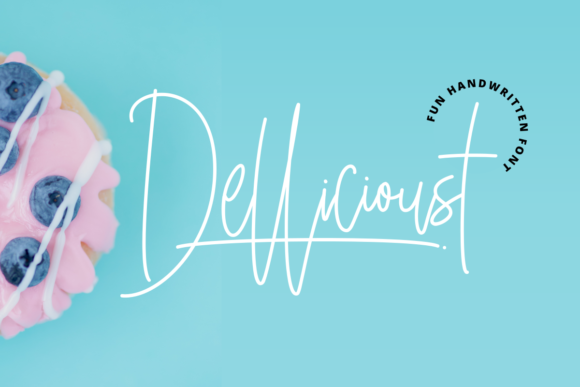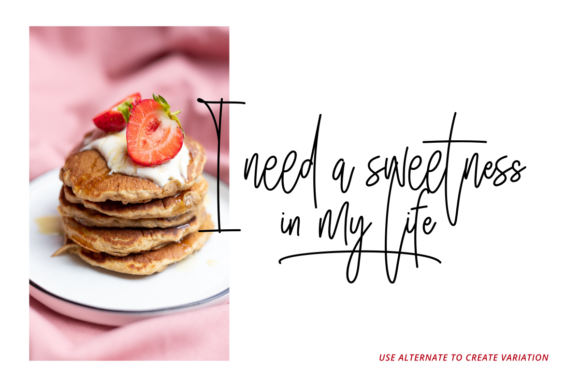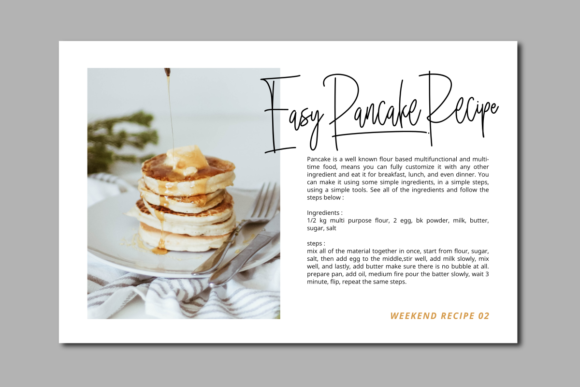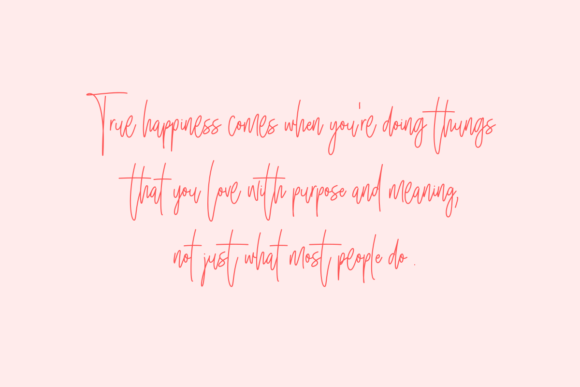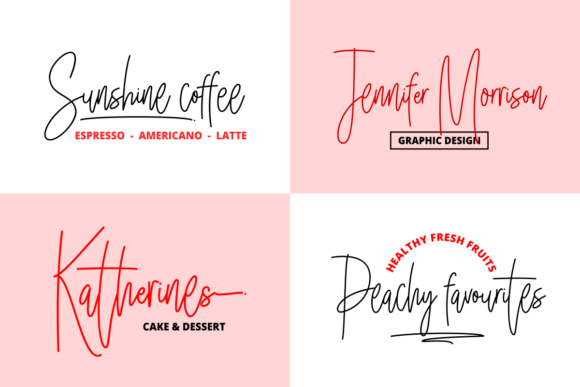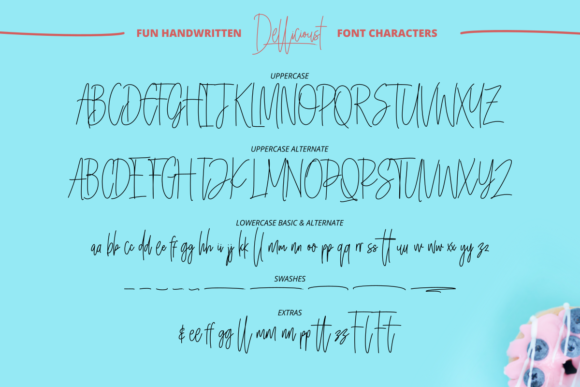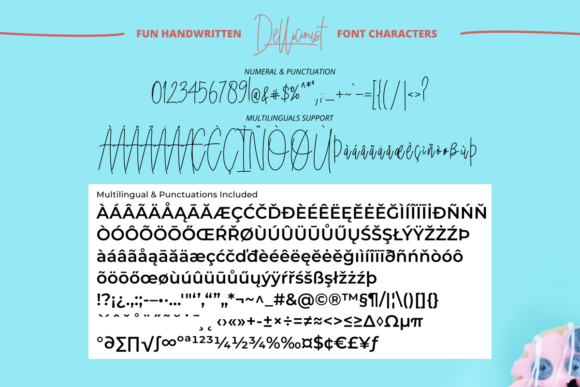
When Words Come Alive
Have you ever stared at a blank page, trying to conjure up the perfect phrase to capture the essence of your design? The words swirl around in your head, but nothing seems quite right. Then, like a breath of fresh air, inspiration strikes, and you know exactly what you need – a font that truly brings your message to life.
Meet the Dellicioust Font, a charming script font that’s perfect for adding a touch of whimsy and personality to your designs. With its playful characters and elegant flair, this font is sure to elevate your typography game. As a designer, you’ll appreciate the PUA encoding that makes it easy to access all of the glyphs and swashes, giving you the freedom to create unique and eye-catching designs.
Dellicioust Font Key Features
- Character Set: This font features a comprehensive character set, including Latin, Cyrillic, and Greek alphabets, as well as various punctuation marks and symbols.
- Font Size and Resolution: Dellicioust Font is designed to be highly scalable, with a recommended font size range of 10-24 points. It can be used at resolutions up to 1200 DPI (dots per inch) for high-quality printing.
- Unique Characteristics: The Dellicioust Font boasts a distinctive, hand-drawn feel with subtle texture and imperfections, giving it a warm and inviting appearance.
- Language Support: This font supports over 200 languages, making it an ideal choice for multilingual publications and websites.
- Font Weight and Style: Dellicioust Font comes in three weights: Light, Regular, and Bold, allowing users to choose the perfect style to suit their design needs.
Dellicioust Font Review
At first glance, Dellicioust Font seems like a promising addition to any designer’s toolkit. The font’s playful, cursive style ✨ is sure to catch the eye and add a touch of whimsy to any project. I particularly appreciate the font’s versatility, as it can be used for a wide range of applications, from invitations to social media graphics.
One of the standout features of Dellicioust Font is its ability to be easily customized ✨. The font comes with a range of weights and styles, making it simple to create a cohesive look and feel. Additionally, the font’s smooth, flowing lines ✨ make it perfect for creating a sense of movement and energy.
However, there are a few limitations to consider ⚠️. One of the main issues is the font’s readability at smaller font sizes. In some cases, the letterforms can become distorted or difficult to decipher, which may impact the overall effectiveness of the design.
Another potential issue is the font’s lack of support for certain languages ⚠️. As a result, designers working on international projects may find themselves limited in their ability to use Dellicioust Font.
- Playful, cursive style
- Smooth, flowing lines
- Range of weights and styles
Limits and Considerations:
- Readability issues at smaller font sizes
- Lack of support for certain languages
Dellicioust Font Practical Application Guide
Tips for Getting the Most Out of Dellicioust Font
Use Dellicioust Font for creative projects that require a unique and eye-catching font. Experiment with different font sizes, colors, and styles to create a visually appealing design. Consider using Dellicioust Font in conjunction with other creative elements, such as graphics and images, to enhance your design.
Dellicioust Font is ideal for use in creative projects, such as:
- Graphic design and print materials
- Web design and digital media
Alternatives to Dellicioust Font
Dellicioust Font is a popular font choice among designers, but it may not always be the best option for a project. Here are some alternatives that can be used depending on the design requirements.
Q: Is Dellicioust Font compatible with right-to-left languages?
Yes, Dellicioust Font is designed to be fully compatible with right-to-left languages, including Arabic, Hebrew, and Persian. The font includes comprehensive language support and is optimized for use in these languages.